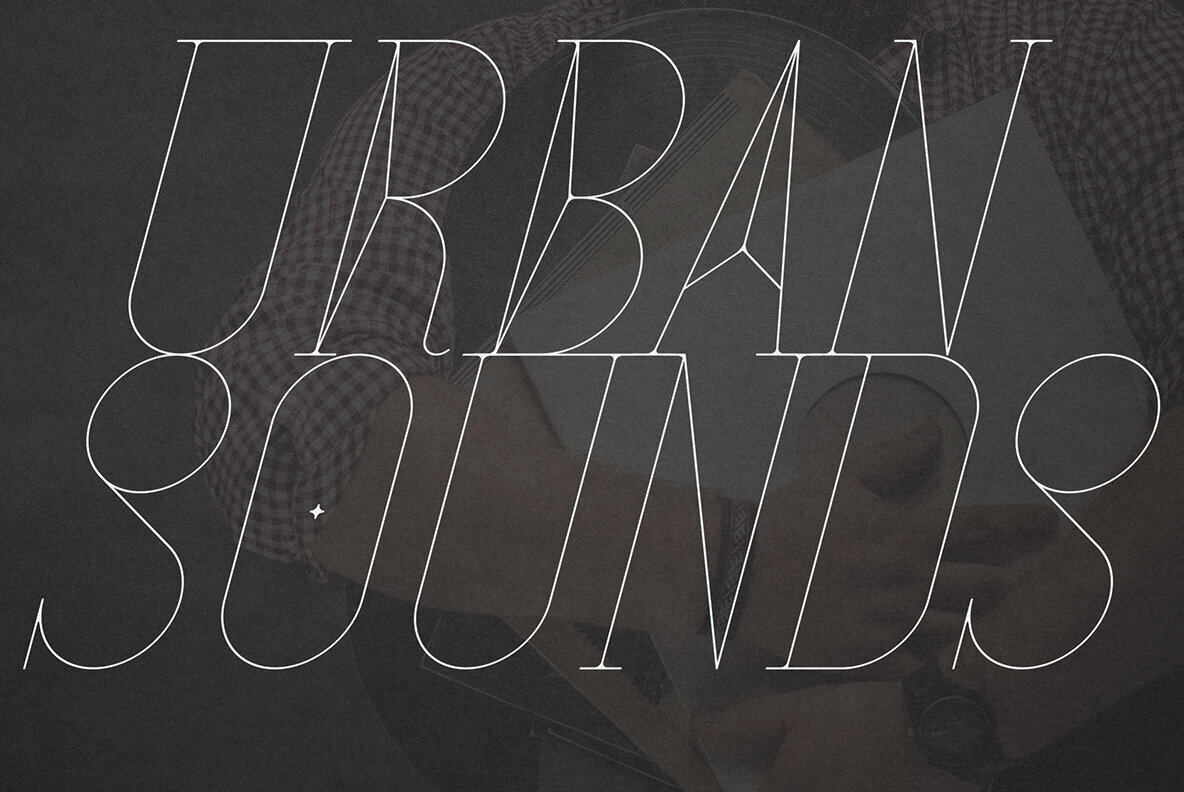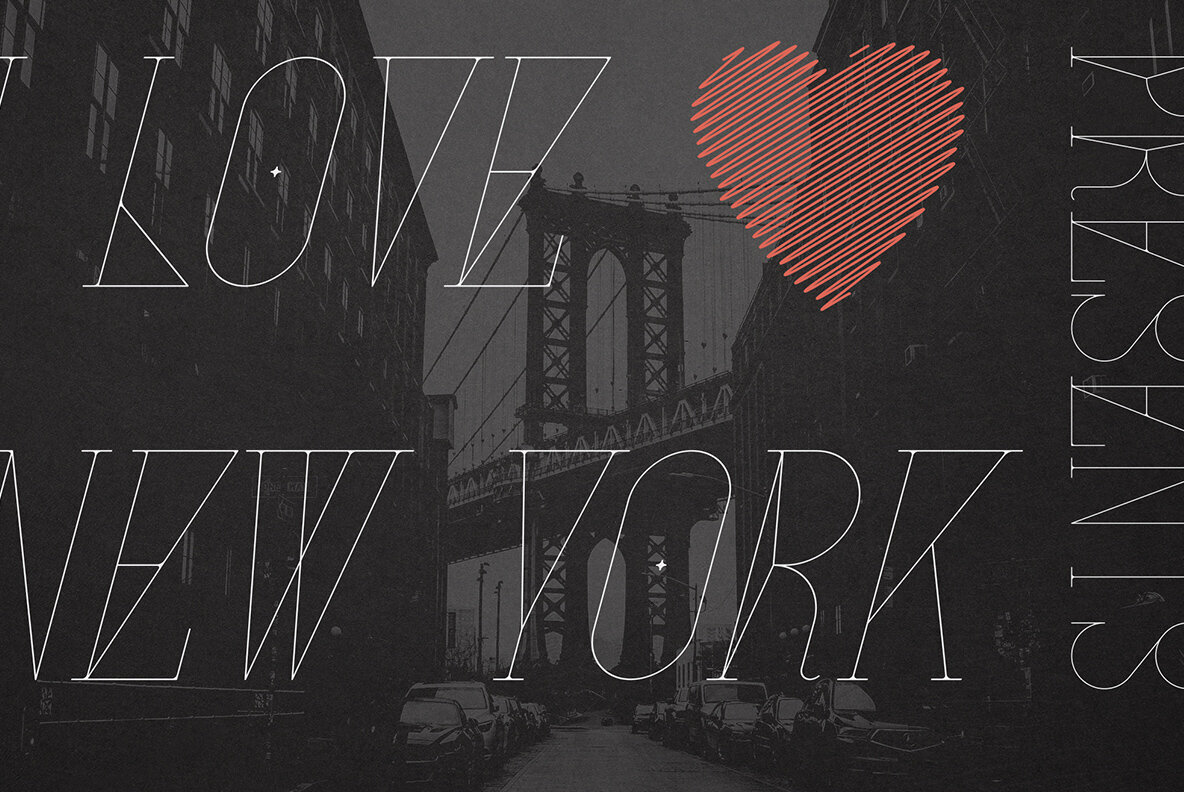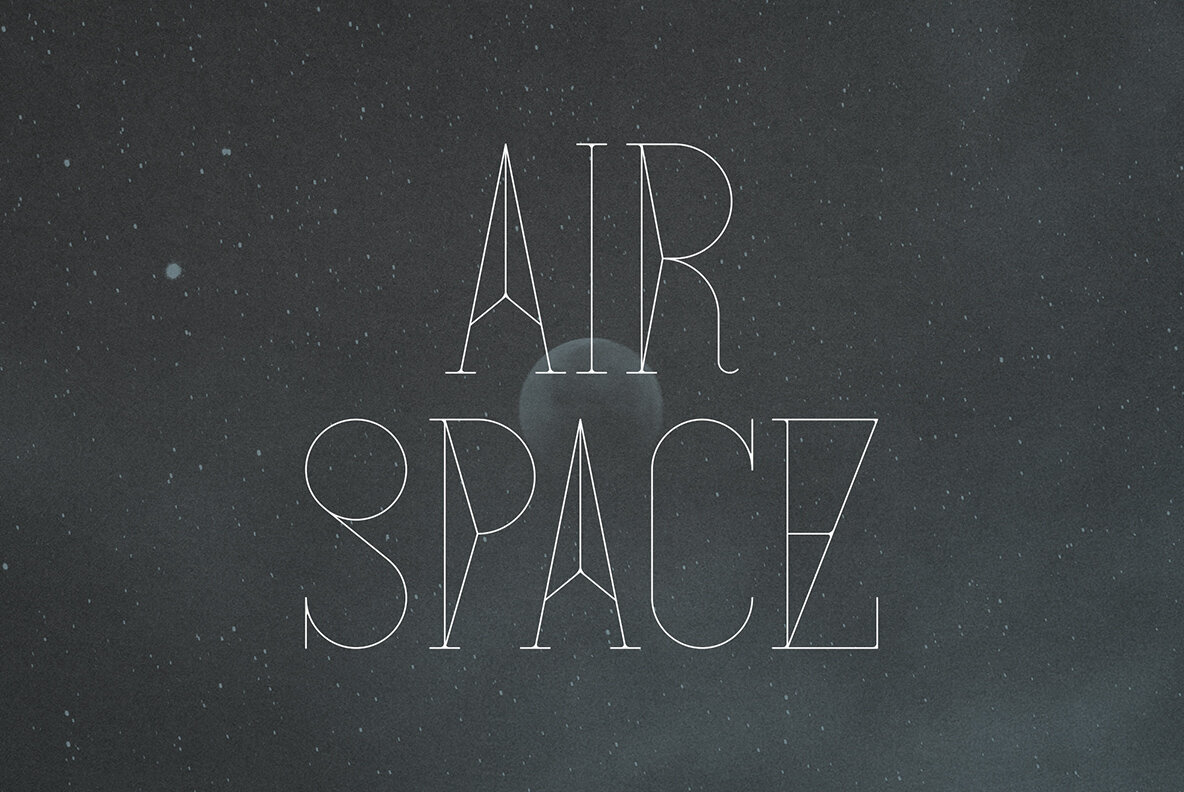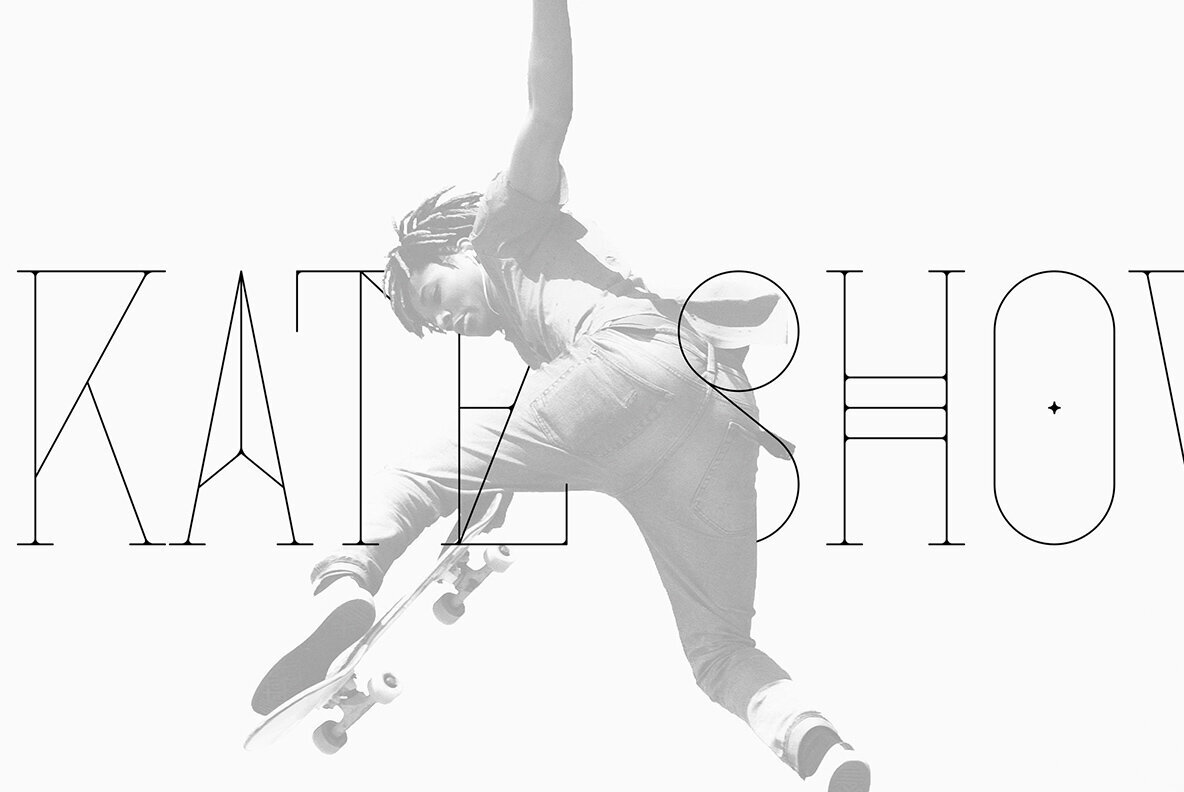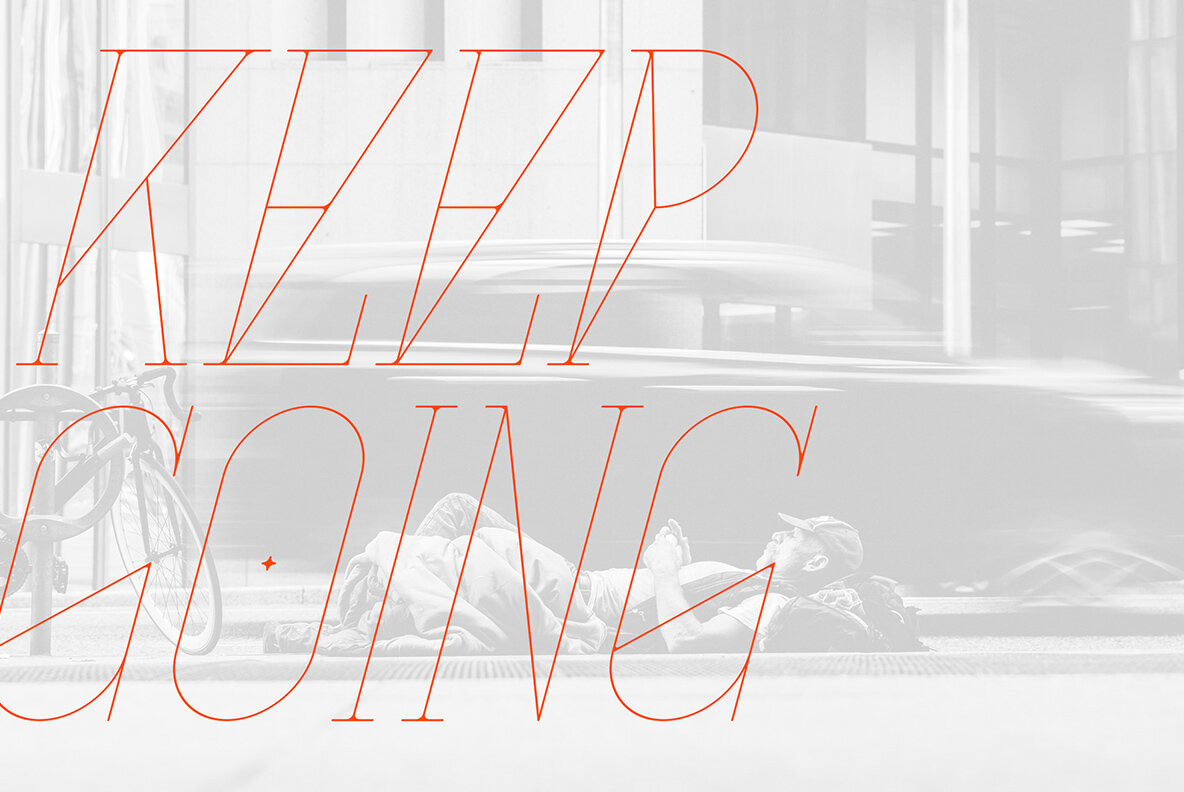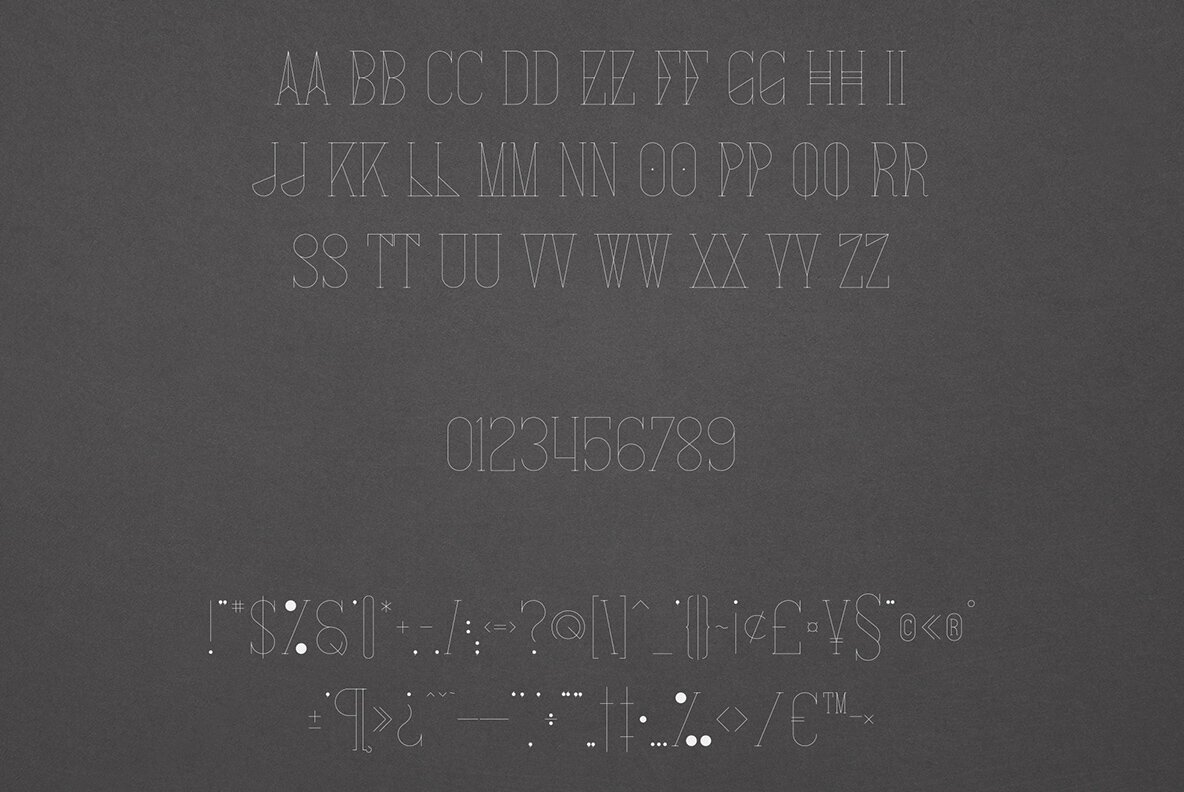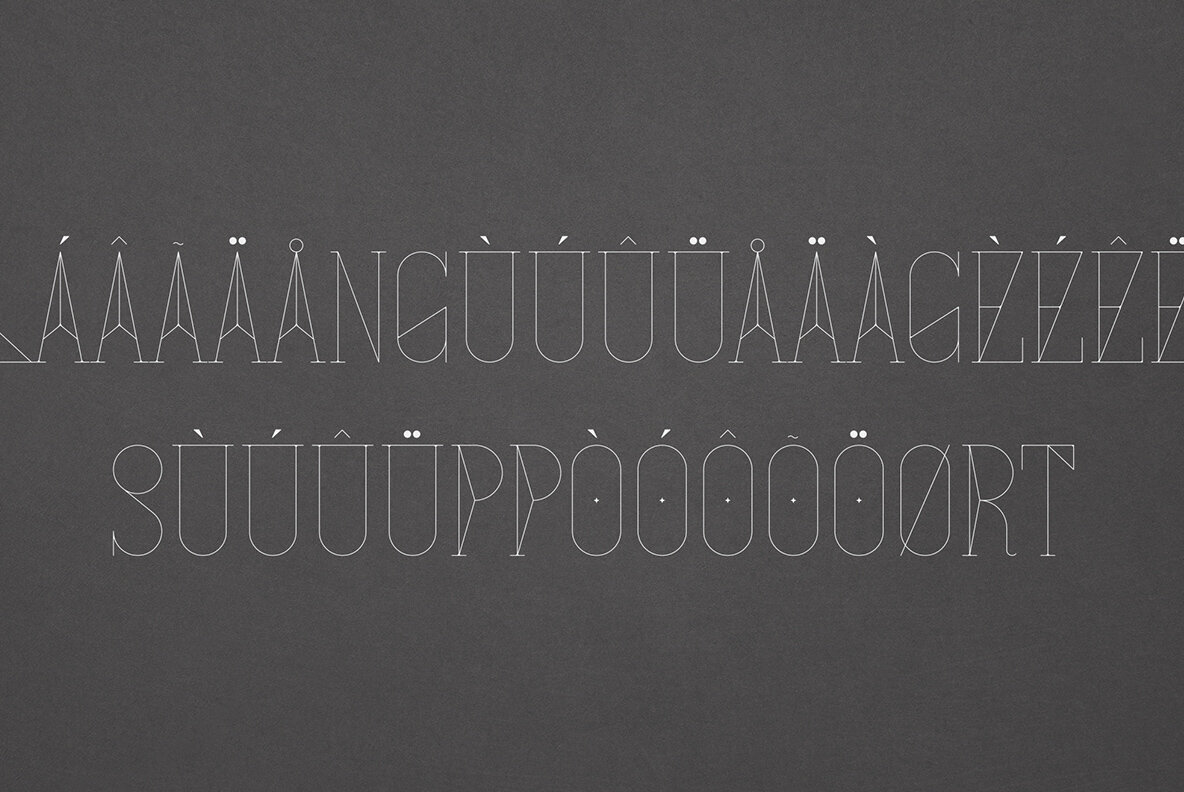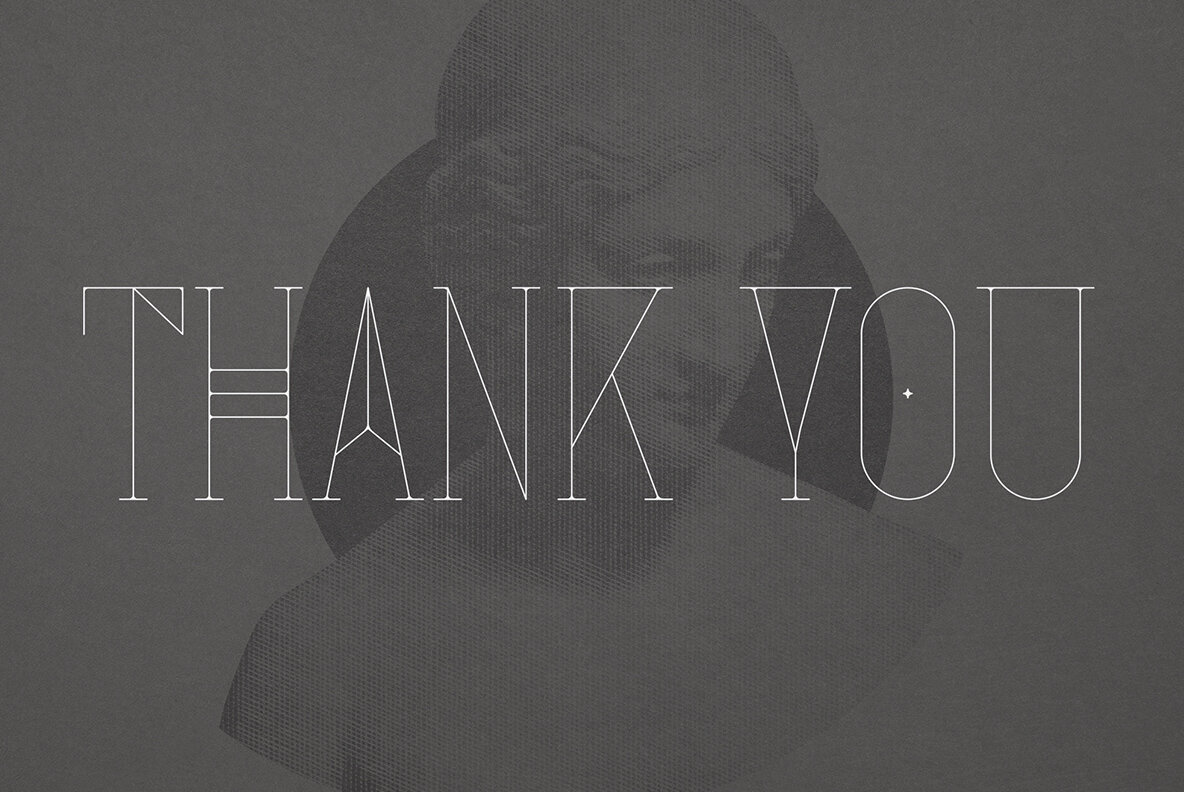
Gerful Font
Gerful emerges as a creative display typeface designed with a geometric flair, offering multilingual support to enhance your projects. This versatile font performs exceptionally well in both large and small sizes, making it a valuable tool for a variety of design applications. Perfect for branding initiatives, homeware designs, product packaging, and engaging magazine headers, Gerful effortlessly adapts to different contexts. Whether used for a bold statement or a subtle text overlay, this typeface adds a stylish dimension to any background image.Gerful: A Geometric Typeface for Stunning Visuals